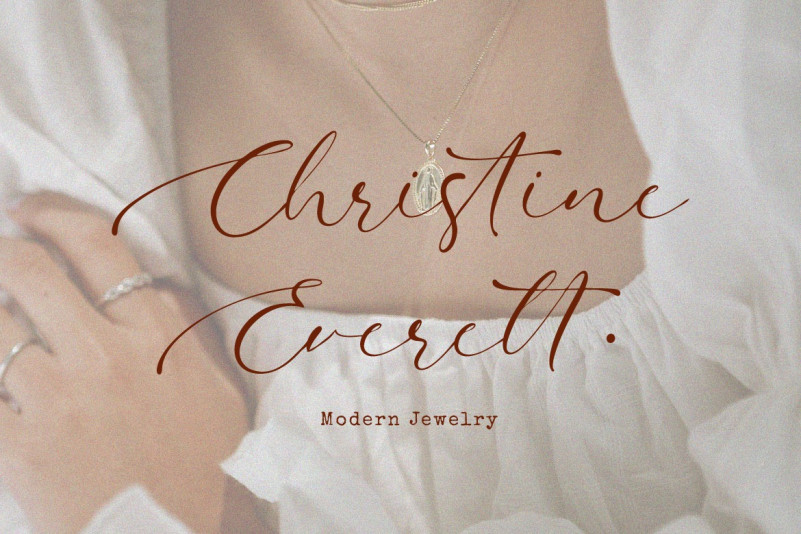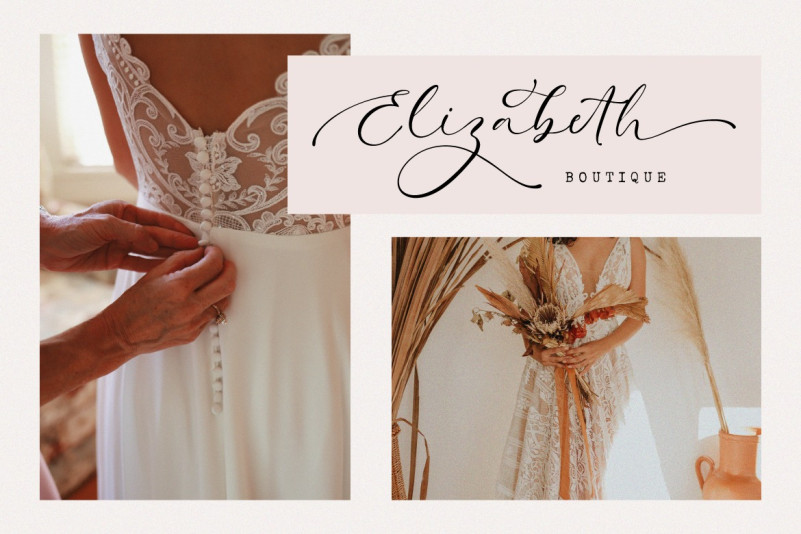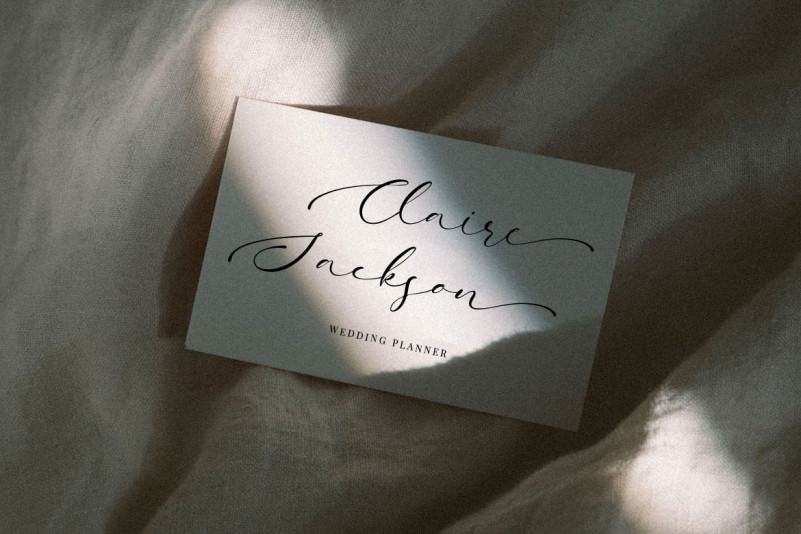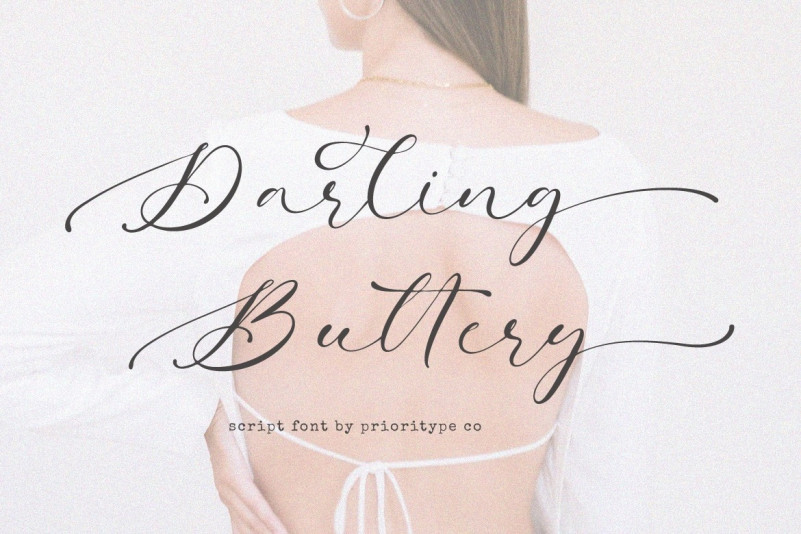
Darling Buttery Font
Darling Buttery Script Font is a modern and luxurious calligraphy with a natural look. Made from font designer named Prioritype Co. Beautiful and modern script fonts are ready for you to use in your design projects. Suitable for use in wedding invitation designs, logos, personalized gifts, photography, quotes, branding and many more.